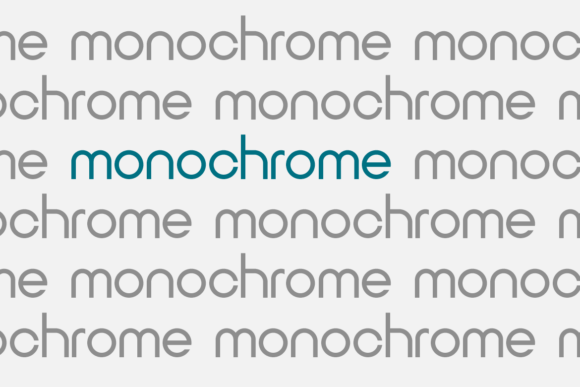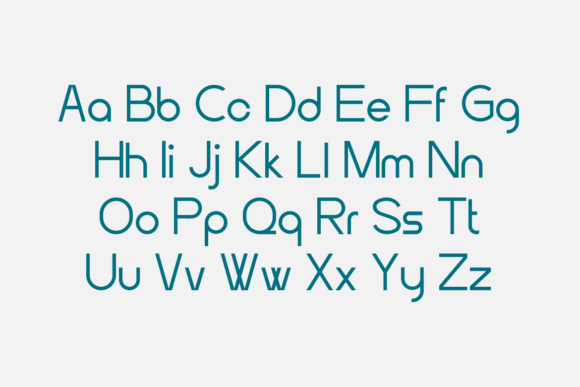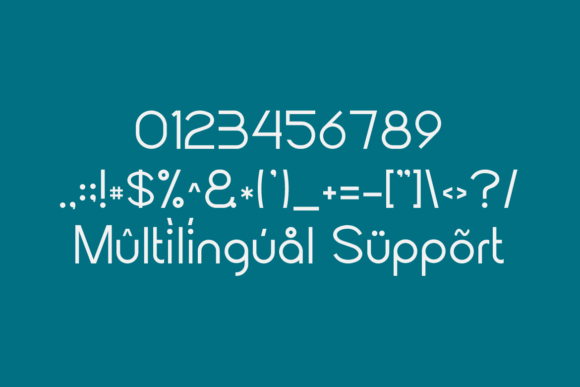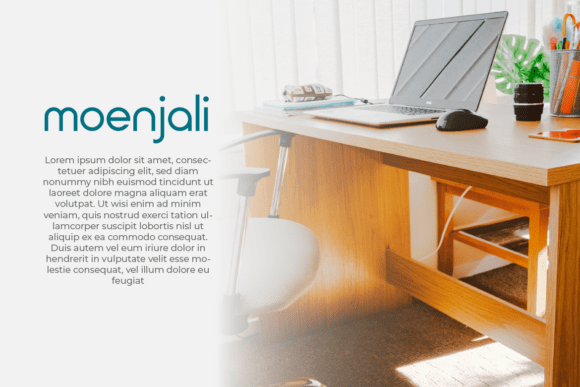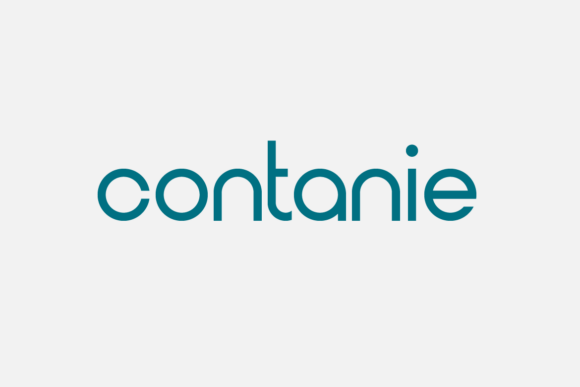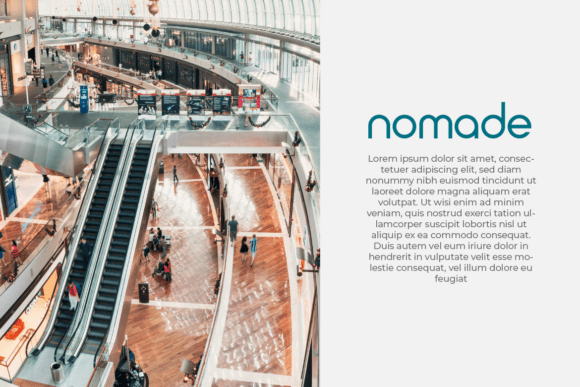
Introduction to Prelude Font
As a designer, there’s nothing quite like the thrill of seeing a project come together. The blank page stares back at you, waiting for the perfect combination of typography, color, and composition to bring it to life. It’s in these moments that you realize the true value of a high-quality font – one that can elevate your design and make it truly shine. That’s where Prelude Font comes in – a clean and balanced sans serif font that embodies clarity, elegance, and quiet strength.
With its smooth lines, harmonious proportions, and refined structure, Prelude Font is the perfect design resource for any creative project. Whether you’re working on a branding campaign, editorial layout, or website design, this font is sure to provide a modern yet timeless appeal. And the best part? It’s available for free download, making it a valuable asset for designers on a budget.
Prelude Font
- High-quality, professional font design ideal for creative projects.
- Perfect for use in graphic design, digital art, and other creative projects requiring a unique and stylish font.
Honest Review: Prelude Font
I recently had the chance to work with the Prelude Font, and I must say it’s a solid addition to any designer’s toolkit. The high quality of this font is immediately apparent, with crisp lines and a clean aesthetic that makes it perfect for creative projects.
One of the standout features of the Prelude Font is its transparent background, which makes it incredibly versatile and easy to use in a variety of design scenarios. This transparency also allows for seamless integration with other design elements, making it a great choice for complex design projects.
- May not be suitable for very large or bold font sizes, where some distortion may occur
- Limited character set, which may limit its use in certain languages or scripts
Overall, I was impressed with the Prelude Font and would definitely recommend it to designers looking for a high-quality, versatile font for their creative projects. The free download is a great bonus, and the transparent background makes it a great resource for any design scenario.
Prelude Font
The Prelude Font is a high-quality design resource that offers a clean and elegant aesthetic, making it perfect for creative projects that require a sophisticated look.
To get the most out of the Prelude Font, consider the following tips:
Use it in combination with other high-quality design resources to create a cohesive and sophisticated look.
Experiment with different font sizes and styles to add depth and interest to your designs.
Take advantage of the font’s transparent background to create visually appealing graphics and designs.
The Prelude Font is perfect for a variety of creative projects, including:
Business cards and marketing materials
Book covers and editorial designs